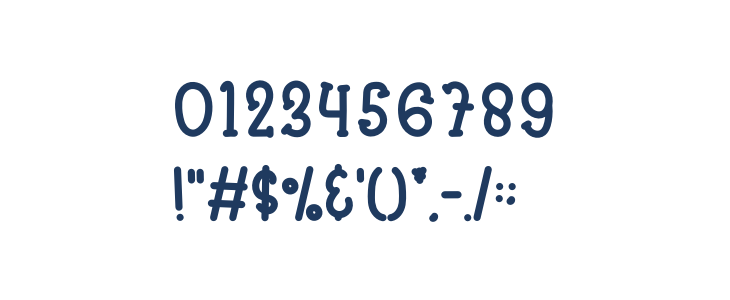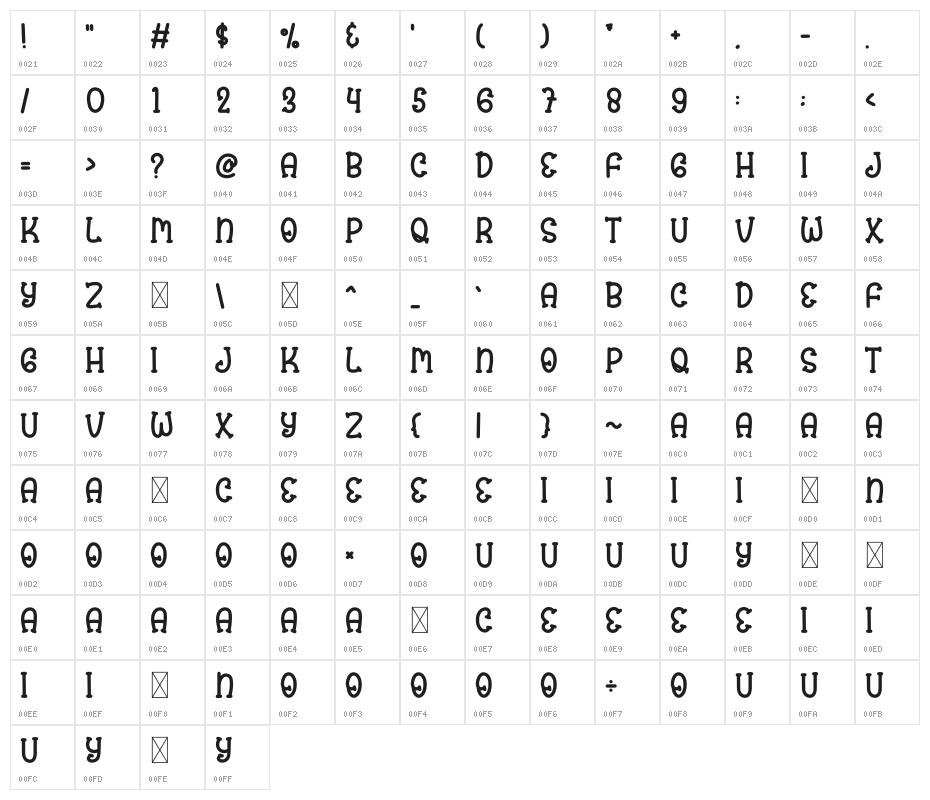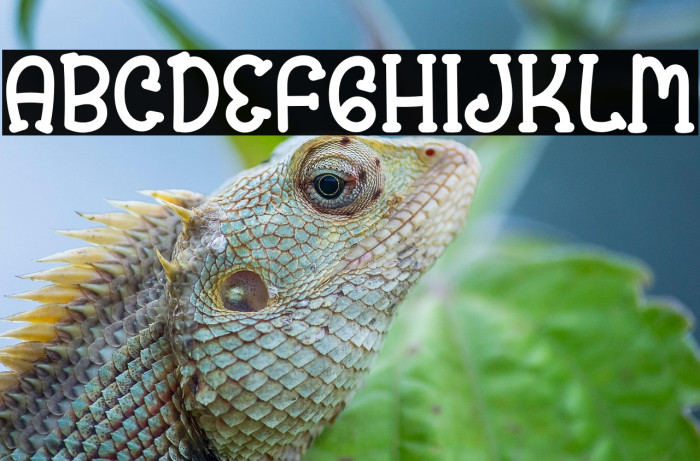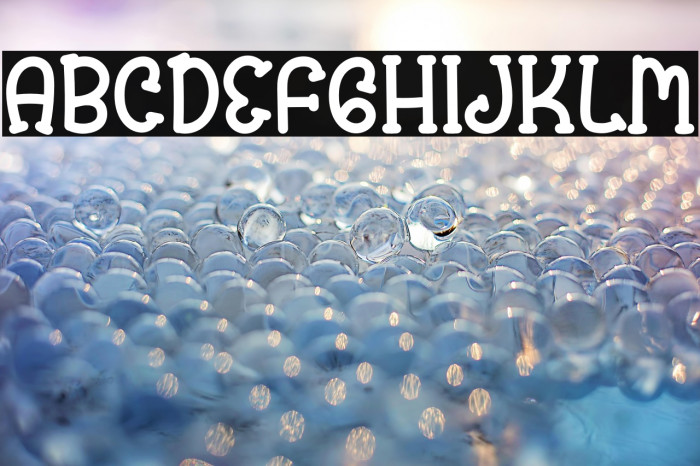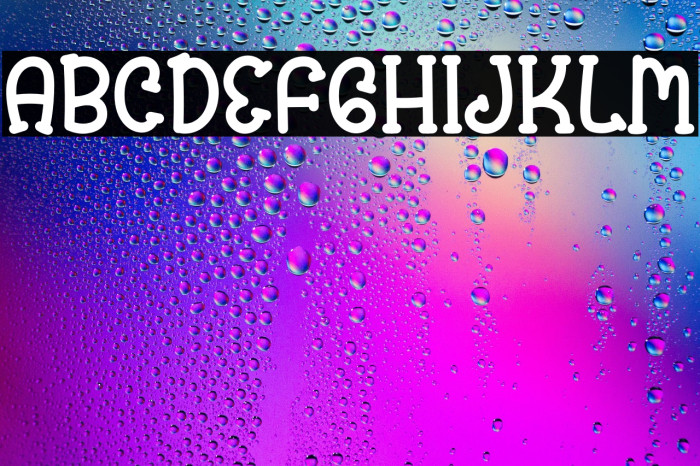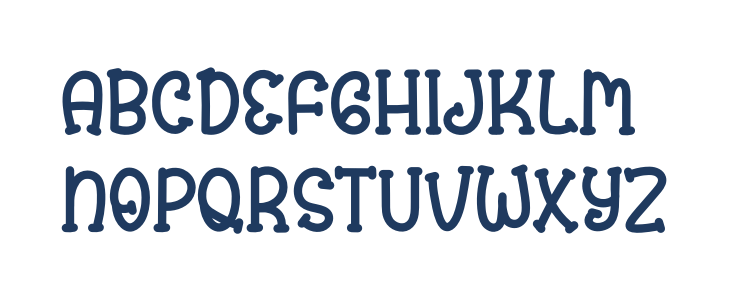
Prince Baby Font
Prince Baby Description
This playful and bold font features rounded edges and a whimsical style, making it ideal for projects that require a fun and approachable look. The characters are evenly spaced with a consistent stroke width, providing a harmonious and balanced appearance. The font includes both uppercase and lowercase letters, numerals, and a variety of special characters, ensuring versatility for different design needs. Its unique style is reminiscent of handwritten or cartoon-like fonts, adding a touch of personality and charm to any text.
| Overall Style | Playful, Whimsical |
| Proposed Projects | Ideal for children's books, playful branding, party invitations, and creative posters. |